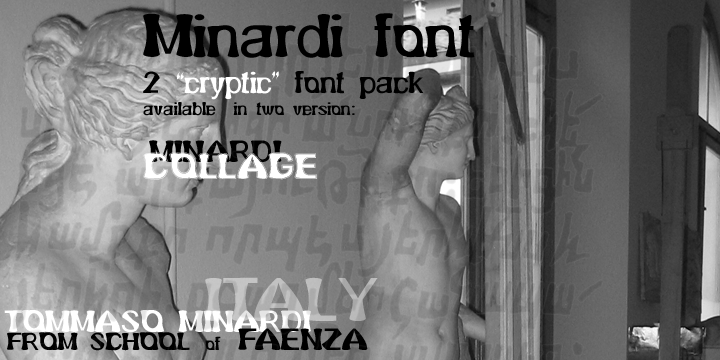
Transposed from the tradition and love of the great painters of the Italian schools, an unusual font that combines talent and virtuosity of ornamental and decorative .
Minardi Collage